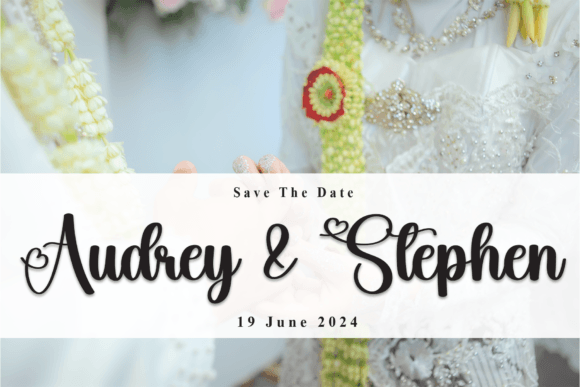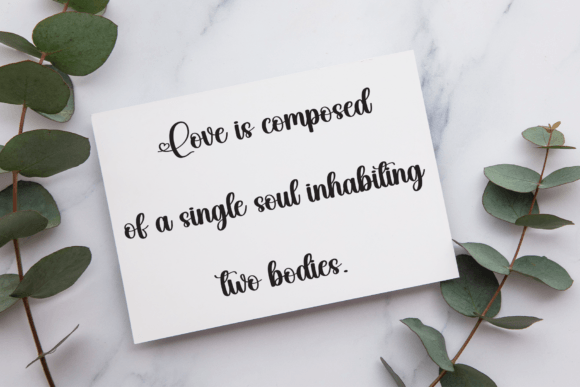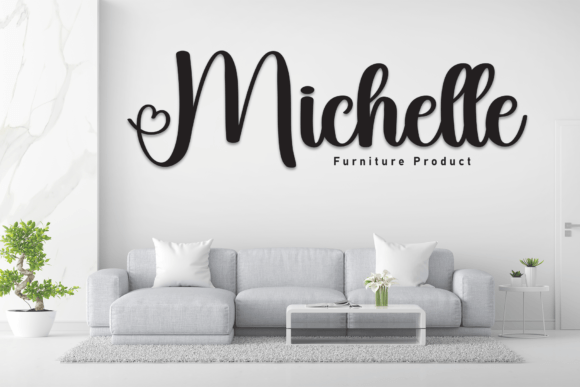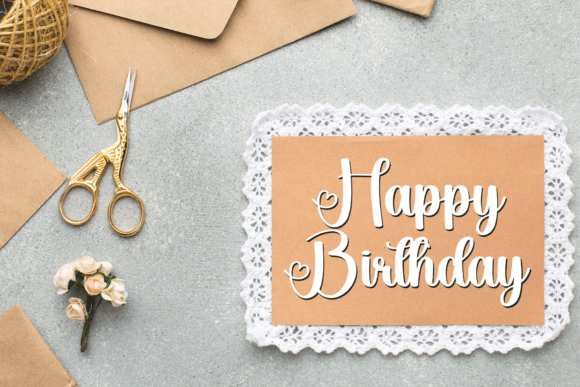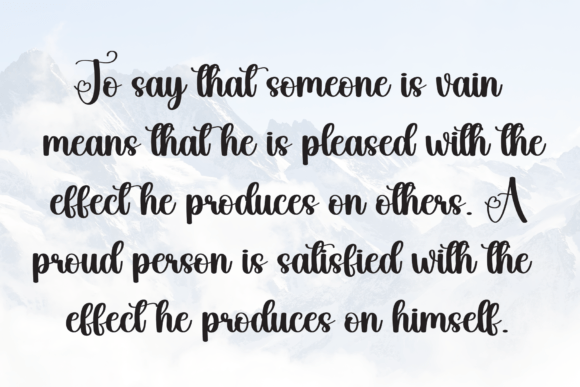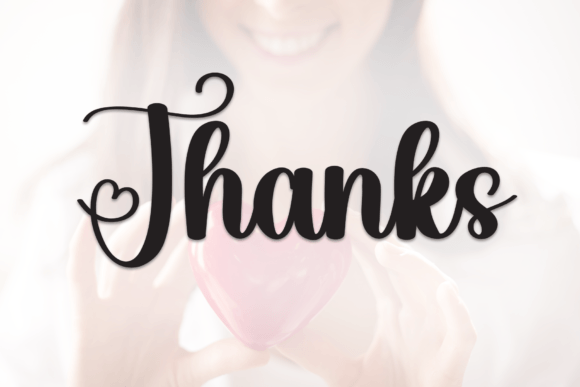
Introduction to Heart Madelyn Font
As a designer, there’s nothing quite like the thrill of starting a new project. You’re given a blank canvas, a blank page, or in this case, a blank invitation, and the possibilities are endless. It’s in these moments that we turn to our trusty design resources to help spark our creativity and bring our vision to life. One such resource that’s sure to put a smile on your face is the Heart Madelyn Font.
This charming handwritten font is a game-changer for any design project that needs a touch of whimsy and personality. With its high-quality design and transparent background, it’s the perfect addition to your design arsenal. Whether you’re crafting a wedding invitation, a birthday card, or any other creative project, the Heart Madelyn Font is sure to add a fun and playful touch that will leave a lasting impression on your audience.
Key Features of Heart Madelyn Font
- High-quality design for creative projects, including wedding invitations, greeting cards, and more.
- Transparent background, making it easy to layer over any image or design.
- Includes 12 unique characters, with a mix of uppercase and lowercase letters, numbers, and symbols.
- Perfect for designers and artists looking for a unique, hand-drawn font for their creative projects.
Honest Review: Heart Madelyn Font
I recently stumbled upon the Heart Madelyn Font and I’m excited to share my thoughts with you. As a designer, I’m always on the lookout for high-quality design resources to enhance my creative projects.
One of the things that caught my attention about the Heart Madelyn Font is its beautiful, cursive script. The font features a transparent background, making it perfect for overlaying on images or using as a standalone title font. The aesthetic is elegant and sophisticated, making it ideal for a wide range of design applications.
What works well with the Heart Madelyn Font:
- Its high-quality design makes it suitable for both digital and print projects.
- The transparent background allows for easy customization and flexibility.
- It’s a great choice for creative projects that require a touch of elegance and sophistication.
However, I do have a few concerns:
- ⚠️ The font may be a bit too ornate for some projects, so be sure to use it sparingly.
- ⚠️ The font may not be suitable for projects that require a bold, sans-serif font.
Heart Madelyn Font
The Heart Madelyn Font is a high-quality, elegant script font perfect for any creative project. With its transparent background, this font is an excellent design resource for designers and artists.
Tips for Getting the Most Out of Heart Madelyn Font
For the best results, use the Heart Madelyn Font in conjunction with a bold, contrasting background to make your text stand out.
Common Use Cases for Heart Madelyn Font
The Heart Madelyn Font is ideal for use in wedding invitations, baby shower invitations, and other creative projects where a elegant, handwritten font is desired.